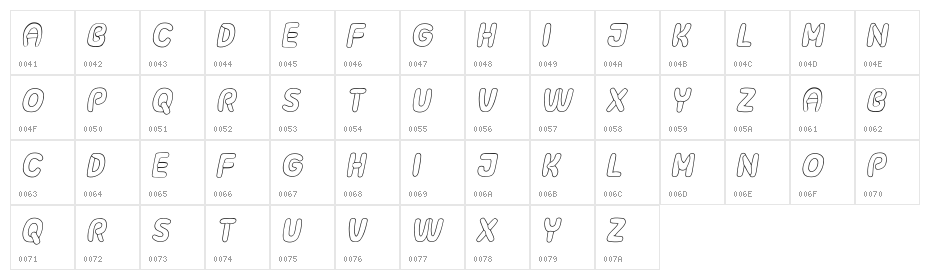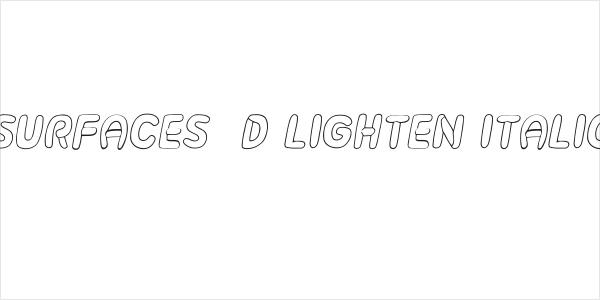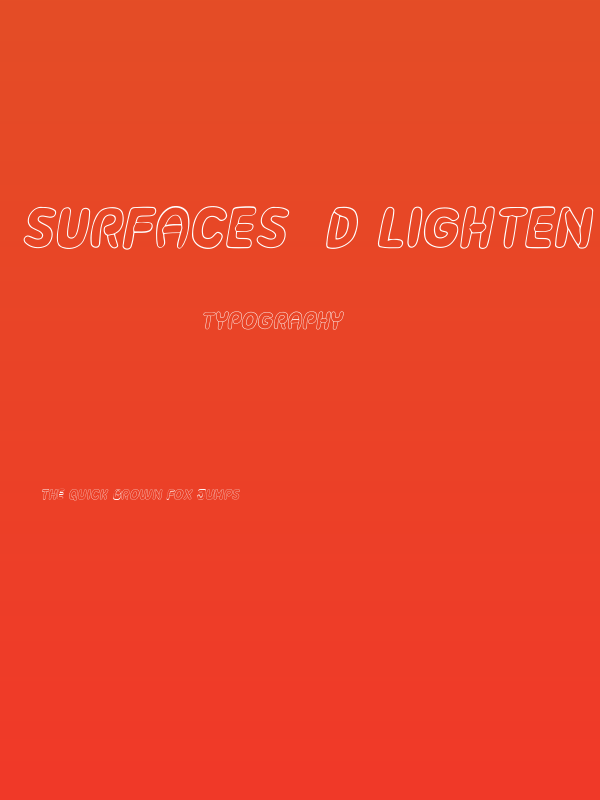
Surfaces 3D Lighten Italic Font
Surfaces 3D Lighten Italic Description
This font features a playful and modern design with a three-dimensional effect. The letters are outlined, giving them a light and airy appearance. The italic slant adds a dynamic and energetic feel, making it suitable for creative and informal projects. The characters are well-spaced, ensuring readability while maintaining a unique style. The font's design is consistent across uppercase and lowercase letters, as well as numbers and special characters, providing a cohesive look.
| Proposed Projects | Ideal for children's books, playful branding, creative posters, and modern web design. |